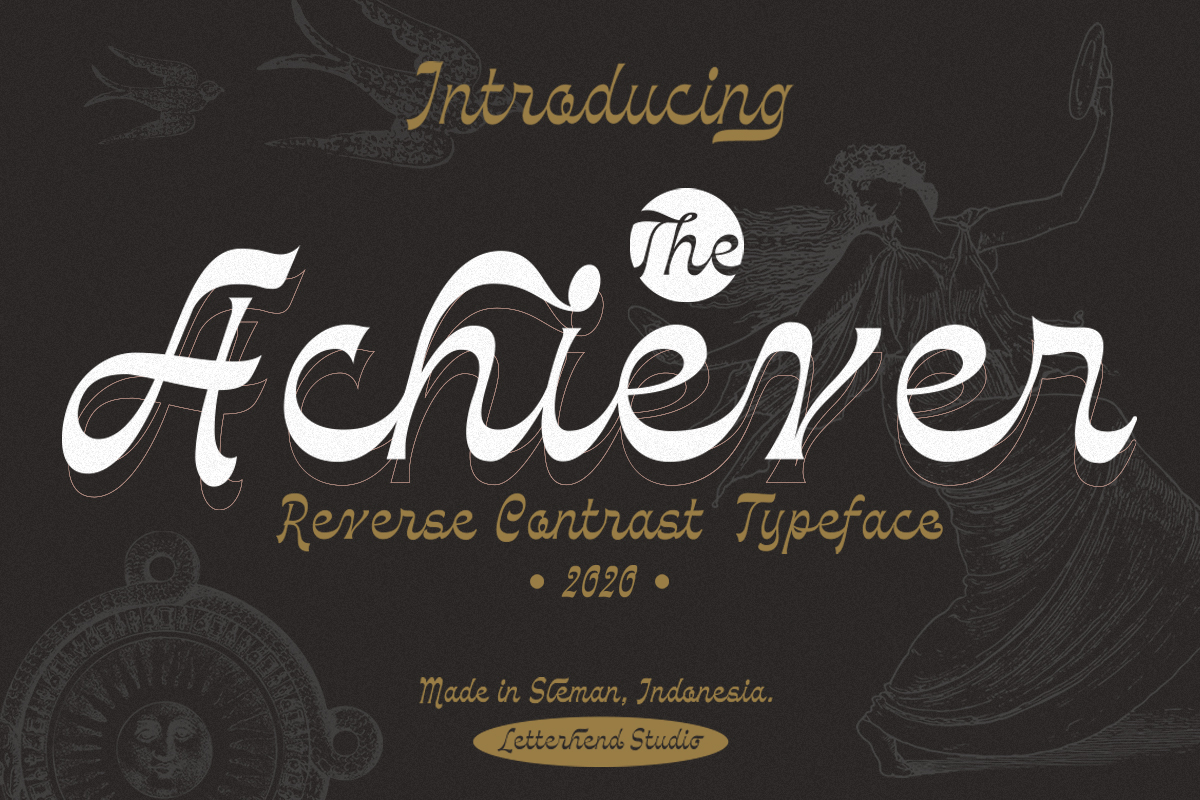
Achiever Font
Achiever Font is perfect for success coaching business branding, motivational speaker presentations, goal-setting app interfaces, personal development book covers, achievement-focused workshop materials, winner award ceremony graphics, business success seminar signage, productivity training company logos, leadership development programs, and inspirational conference promotions. This powerful typeface brings winning energy to career advancement services, success-oriented educational platforms, achievement recognition systems, goal achievement apps, and performance excellence training organizations.
Achiever Font is exciting because it embodies the unwavering determination and victorious spirit of successful achievement through its confidently structured letterforms. The font features bold, forward-moving characters with dynamic proportions and success-oriented details that convey progress, accomplishment, and the relentless pursuit of excellence. Its distinctive construction demonstrates achievement-focused design with carefully crafted elements that create an immediate sense of momentum and winning potential. The font's success-driven presence and achievement authenticity make it perfect for brands seeking to communicate goal attainment, personal victory, and professional excellence in their visual communications.
The Achiever Font family includes various success-oriented styles: Light, Regular, Medium, Bold, Black, Italic, Condensed, Extended, Dynamic, Winning, Success, and Victory variants. Each family member maintains the core achievement DNA while offering different levels of motivational impact for diverse success-focused design applications. The comprehensive font collection ensures consistent achievement branding across success campaigns, goal-oriented products, and motivational communication materials.
Whether you're creating success-focused brand identities, designing motivational marketing materials, developing achievement-oriented website headers, or crafting goal-oriented promotional campaigns, Achiever Font delivers outstanding success appeal and achievement authenticity. The font's distinctive winning personality excels in success logos, achievement packaging design, motivational applications, and goal-focused projects where personal victory and professional excellence are essential.